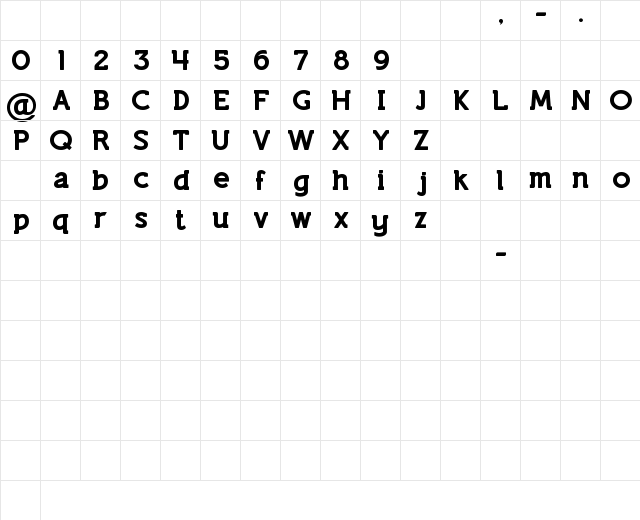
Complete Lifestyle Marker M54 Regular glyph index. Displaying only characters natively supported by Lifestyle Marker M54 Regular font.
Lifestyle Marker M54 is a composed and adaptable typeface that performs quietly and consistently across a wide range of design contexts.